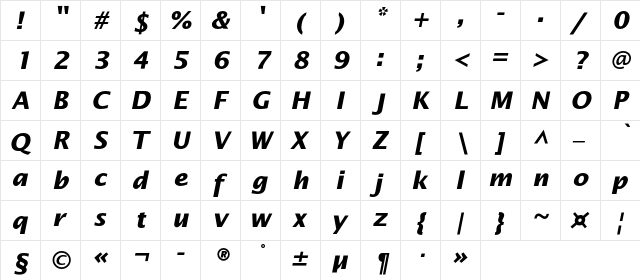
OfficeTypeSans Bold Italic
Design Context for OfficeTypeSans Typeface
OfficeTypeSans is a composed and adaptable typeface that performs quietly and consistently across a wide range of design contexts. Its italic angle brings a sense of urgency and motion to the letterforms. Its bold stroke weight gives it real presence on the page.
Pro Tip: Try OfficeTypeSans for annotation and caption copy alongside an upright companion — the contrast in angle creates a dynamic but ordered typographic system.